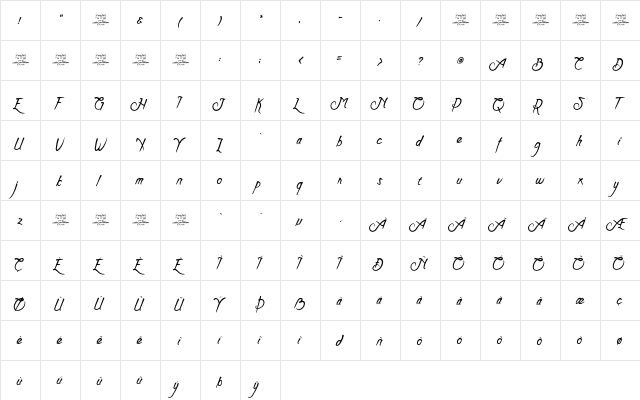
Clarraph Script Personal Use Regular
| Foundry | Tama Putra |
| Designer | Tama Putra |
Design Context for Clarraph Script Personal Use Typeface
Clarraph Script Personal Use flows with the natural rhythm of handwritten lettering, making it ideal for designs that call for warmth and personal expression.
Font Pairing: Combine Clarraph Script Personal Use with a simple geometric sans for maximum contrast — the tension between flowing curves and clean structure is a classic typographic pairing.
Pro Tip: Pair Clarraph Script Personal Use with a clean sans-serif for supporting text. The contrast between fluid script and geometric structure creates an elegant typographic hierarchy.